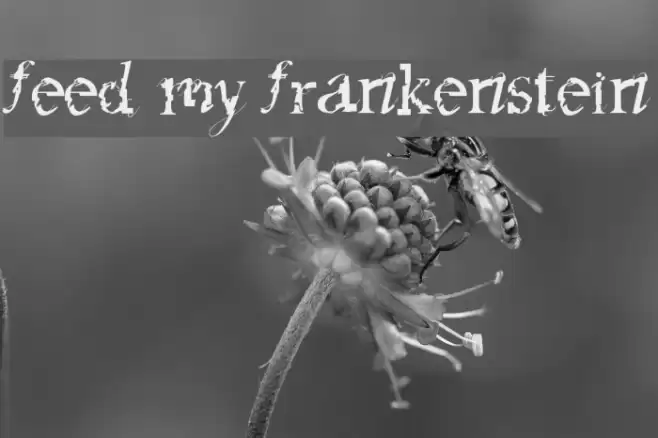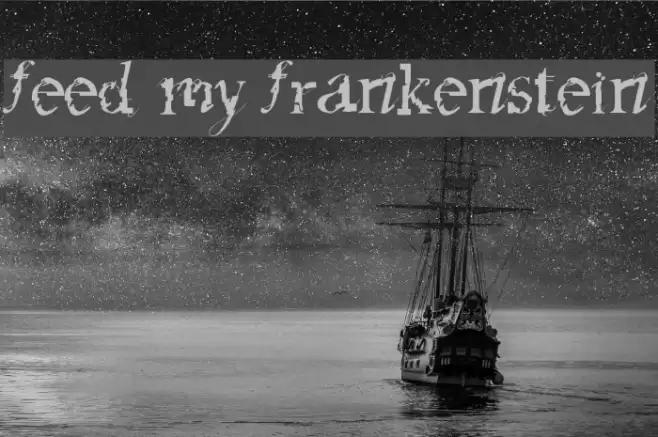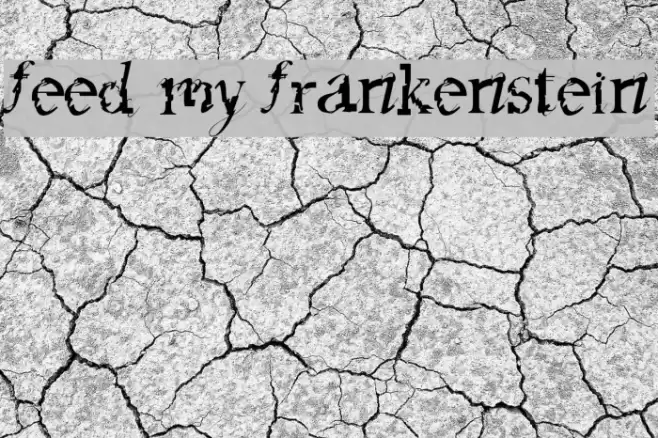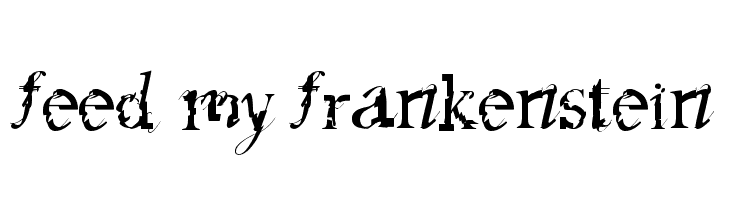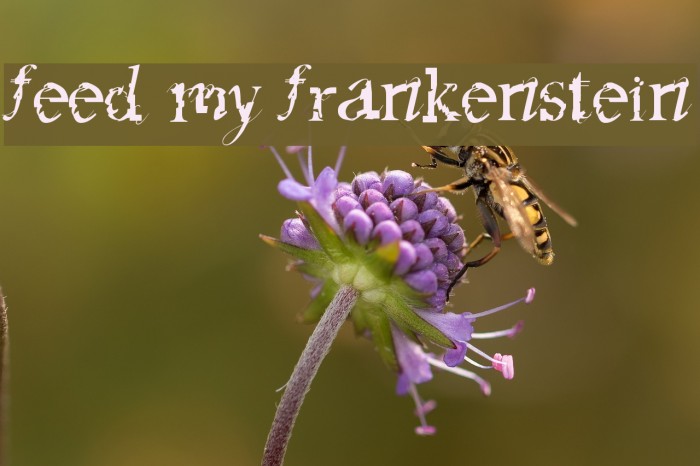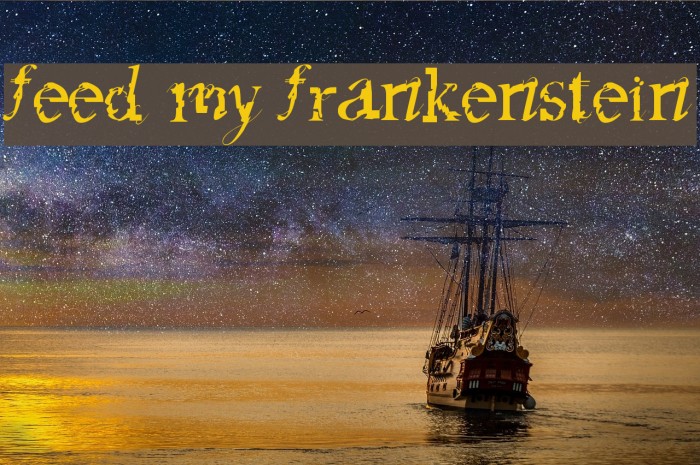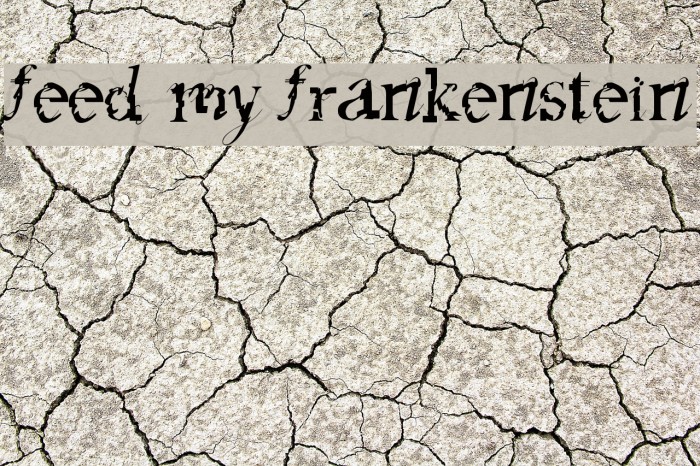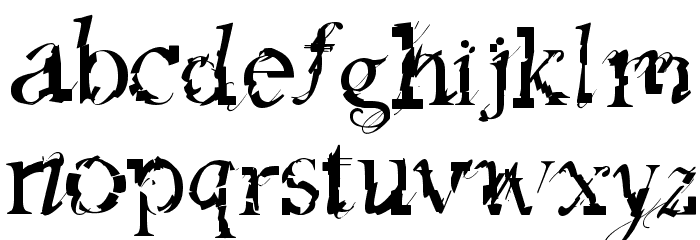
feed my frankenstein Font
feed my frankenstein Description
This font features a unique and edgy design, characterized by its distressed and chaotic appearance. The letters are adorned with jagged edges and irregular strokes, giving it a grungy and rebellious feel. The uppercase and lowercase letters maintain a consistent style, with each character exhibiting a sense of movement and energy. The numerals and special characters follow the same aesthetic, ensuring a cohesive look across all elements. This font is perfect for projects that require a bold statement or a touch of unconventional flair.
An edgy, distressed font with jagged edges and chaotic strokes from Horror fonts.
- Proposed Projects: Ideal for album covers, posters, Halloween-themed designs, or any project needing a rebellious touch.
- Overall Style: Grunge, Edgy
- Use Case: Headlines, Posters, Themed Events